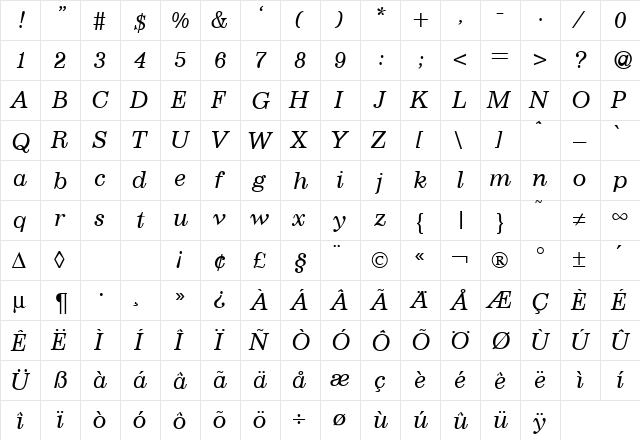
Immaculate RegularItalic
Design Context for Immaculate Typeface
Immaculate offers clean, dependable letterforms without strong stylistic allegiance, making it a practical choice for designers who need flexibility. Its italic angle brings a sense of urgency and motion to the letterforms.